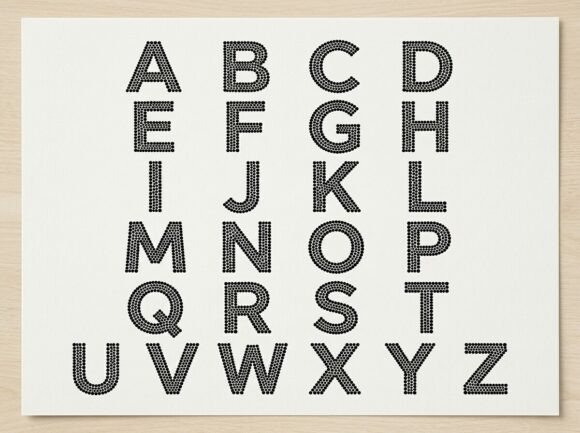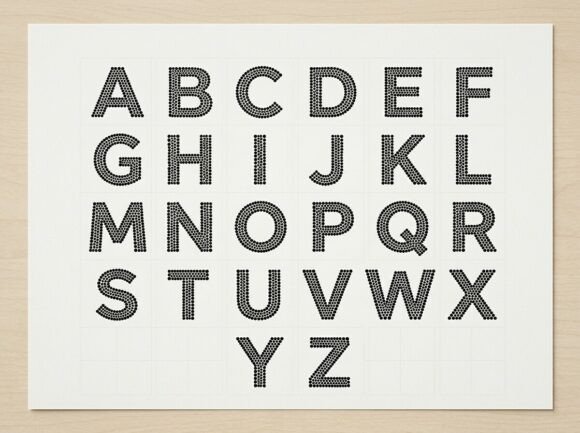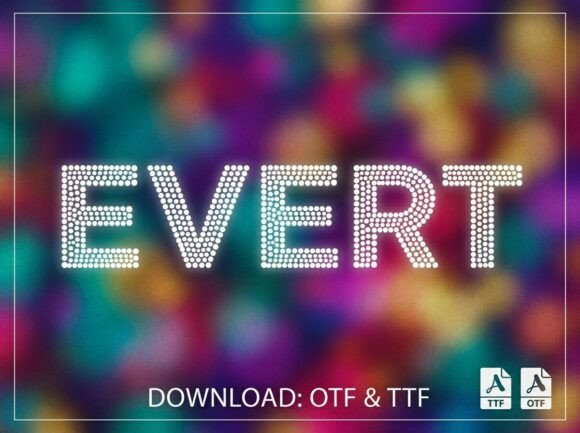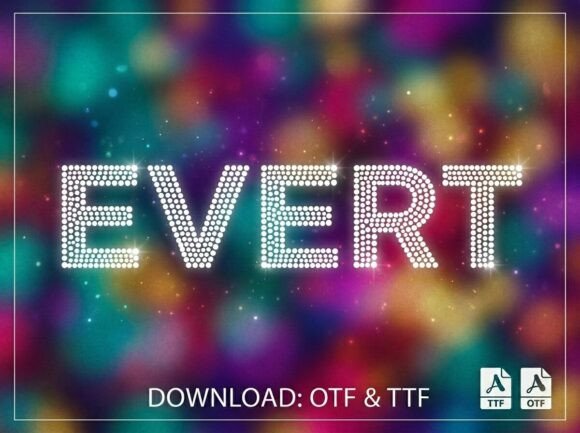
Evert Font: A Stunning Decorative Display Font for Creative Minds
Are you tired of using the same old fonts for your designs? Look no further than the Evert Font, a stunning decorative display font that’s sure to turn heads. With its unique artistic elements and strong visual personality, this font is perfect for creators who want to break away from the ordinary and make a statement.
What is Evert Font?
Evert Font is a decorative display font designed to be the center of attention. Its unique artistic elements and strong visual personality make it perfect for bold headlines, artistic logos, and creative packaging. This font is versatile enough to be used in a variety of design projects, from branding and advertising to packaging and signage.
Key Features of Evert Font
- Unique Artistic Elements: Evert Font features unique artistic elements that set it apart from other fonts. Its intricate details and ornate design make it perfect for creating visually striking designs.
- Strong Visual Personality: This font has a strong visual personality that’s sure to make a statement. Its bold and eye-catching design makes it perfect for headlines, logos, and other design elements that need to stand out.
- Versatile: Evert Font is versatile enough to be used in a variety of design projects, from bold headlines and artistic logos to creative packaging and signage.
- Professional and Polished Finish: Despite its bold and artistic design, Evert Font maintains a professional and polished finish that’s perfect for high-end designs.
Who is Evert Font for?
Evert Font is perfect for:
- Graphic Designers: If you’re a graphic designer looking for a unique and eye-catching font to add to your collection, Evert Font is a great choice.
- Log designers: If you design logos for a living, Evert Font is a great option. Its bold and artistic design makes it perfect for creating visually striking logos.
- Crafters: If you’re a crafter who loves to create handmade products, Evert Font is a great choice. Its unique design makes it perfect for creating custom signs, labels, and other decorative elements.
- Branding and Advertising Agencies: If you work in a branding or advertising agency, Evert Font is a great option. Its bold and eye-catching design makes it perfect for creating high-impact headlines and advertisements.
Tips for Using Evert Font
Here are some tips for using Evert Font:
- Use it for headlines: Evert Font is perfect for creating bold and eye-catching headlines. Use it to add a touch of elegance and sophistication to your designs.
- Pair it with a simple font: To create visual interest, pair Evert Font with a simple font. This will create a nice contrast and add depth to your designs.
- Experiment with colors: Evert Font looks great in a variety of colors. Experiment with different colors to find the one that works best for your design.
Evert Font is a stunning decorative display font that’s perfect for creators who want to break away from the ordinary. Its unique artistic elements and strong visual personality make it perfect for bold headlines, artistic logos, and creative packaging. With its professional and polished finish, Evert Font is a great choice for designers and crafters who want to add a touch of elegance and sophistication to their designs.